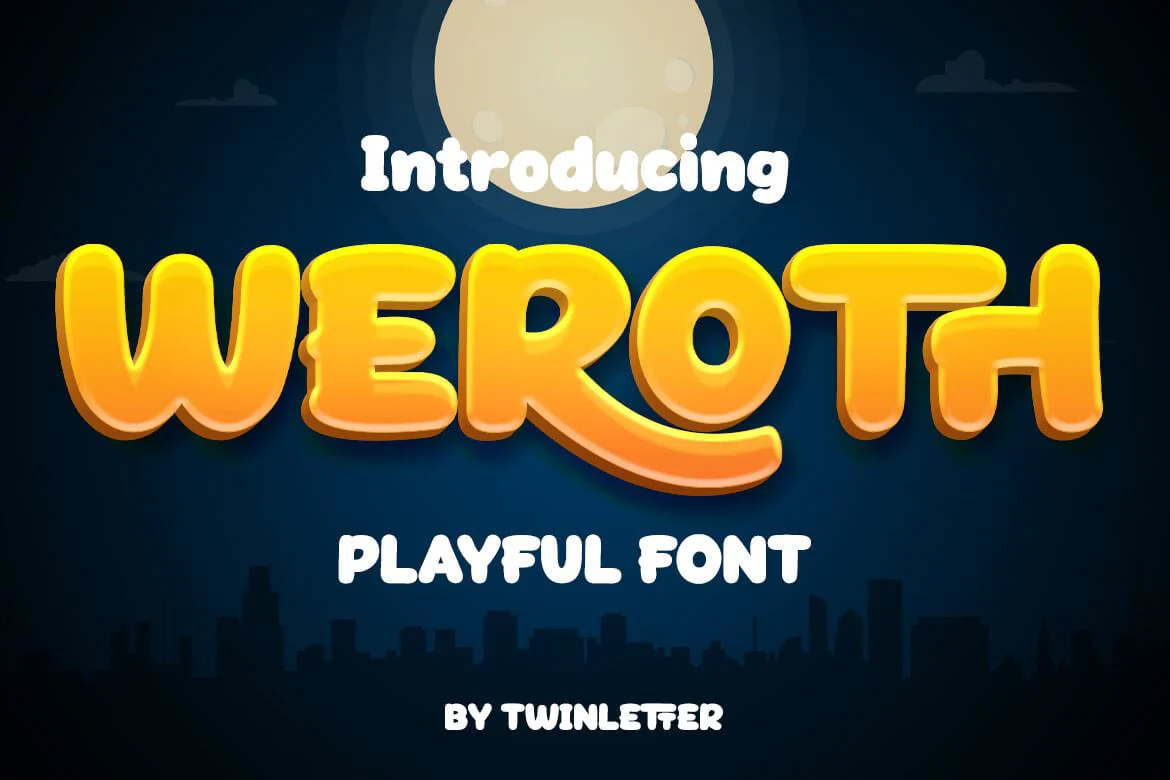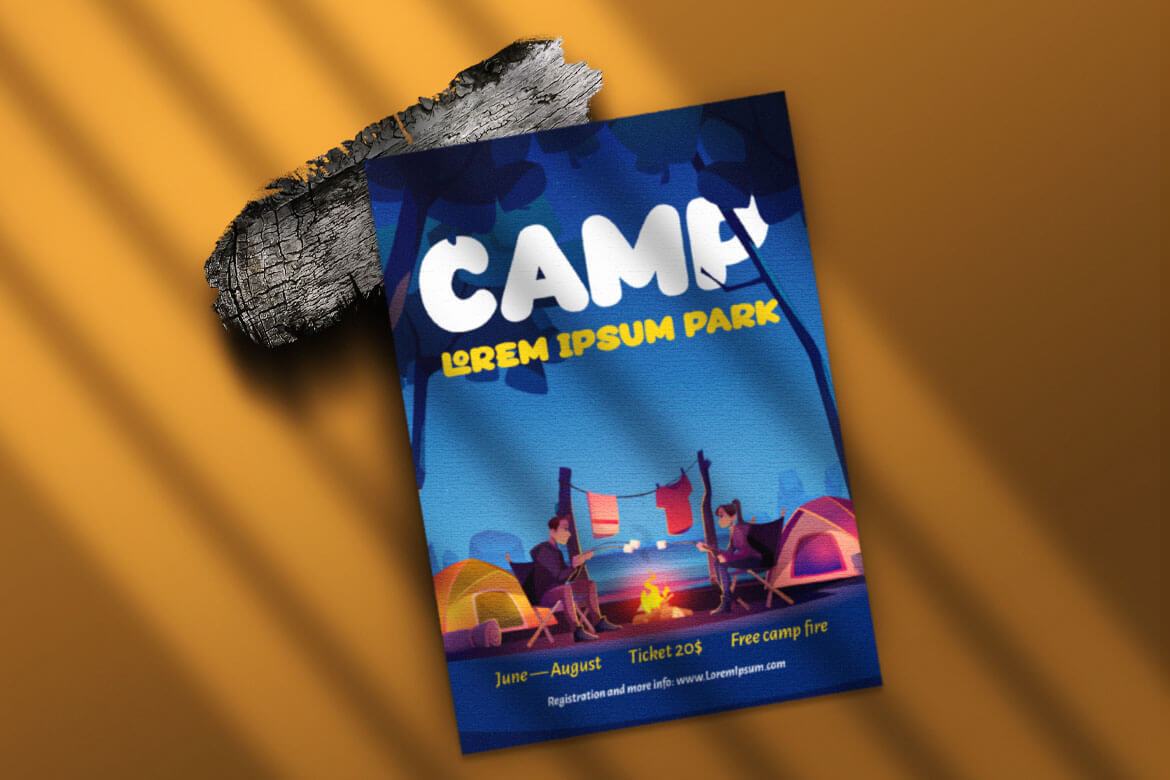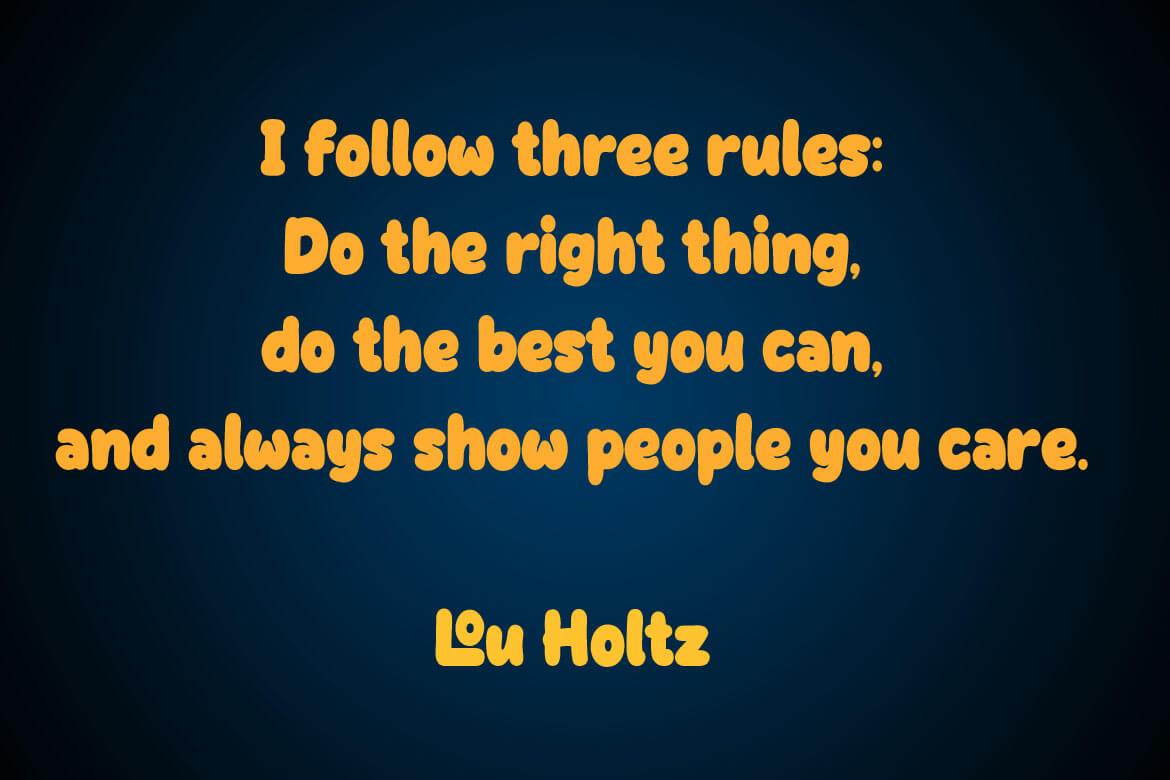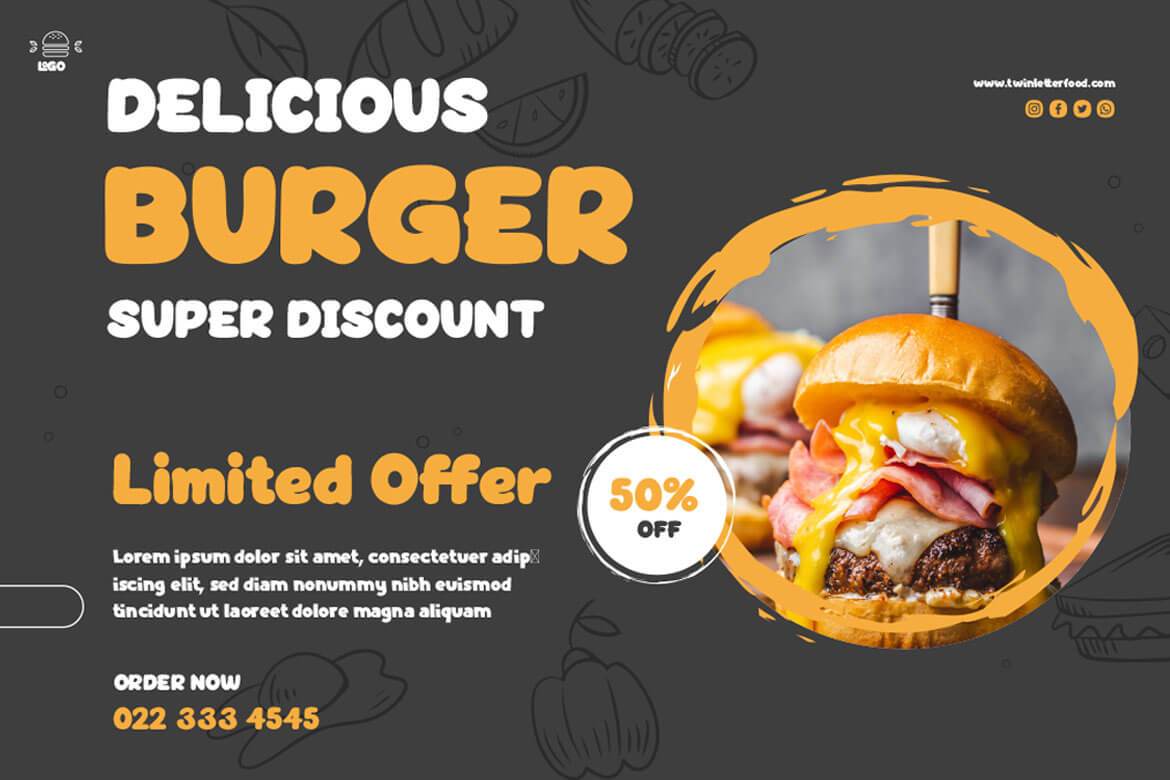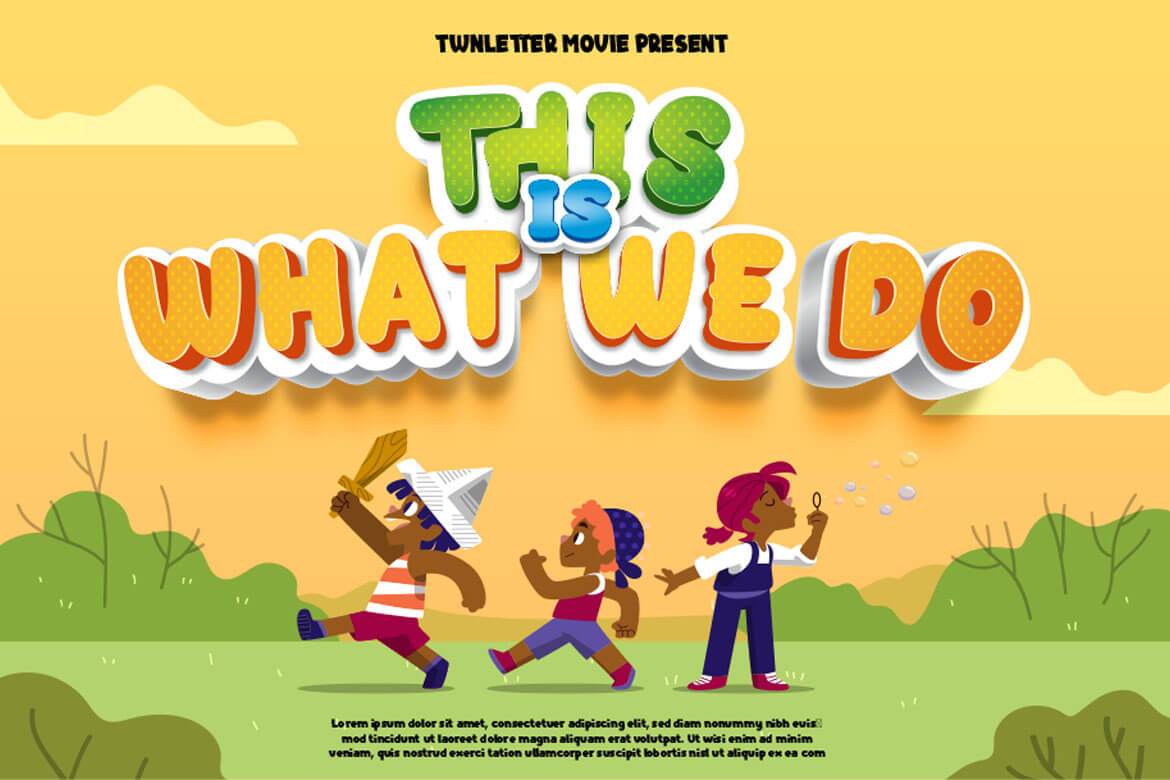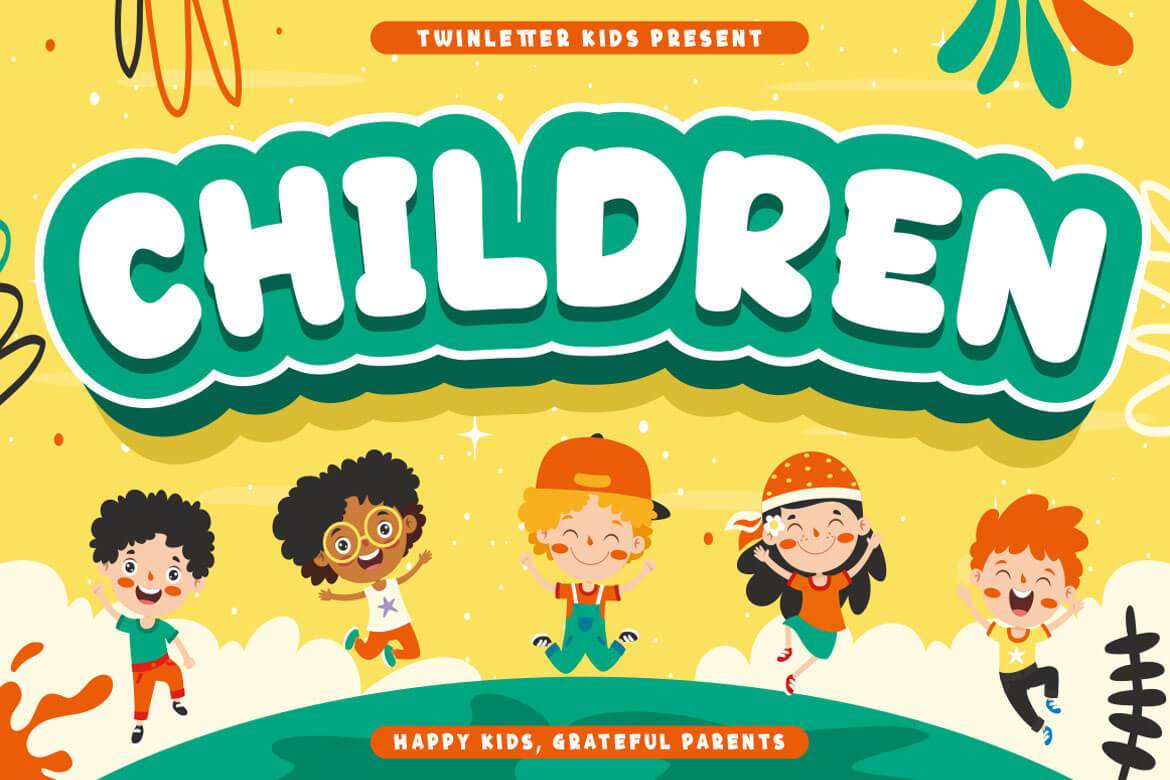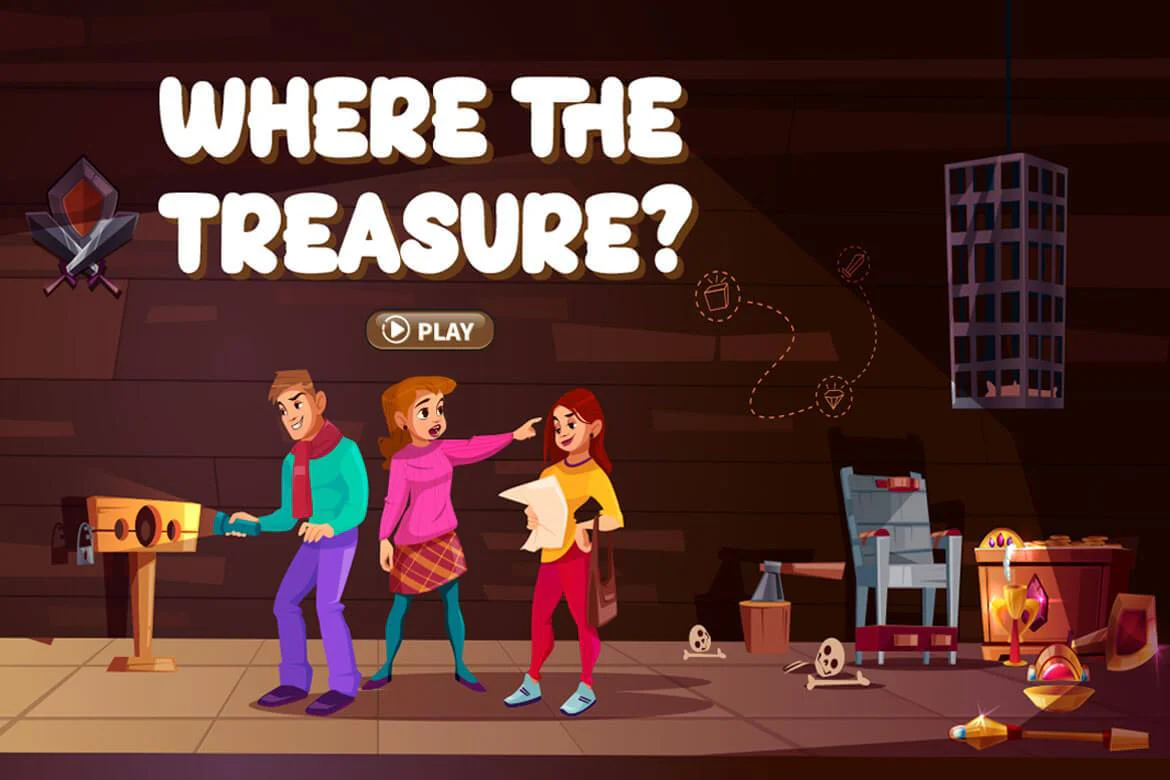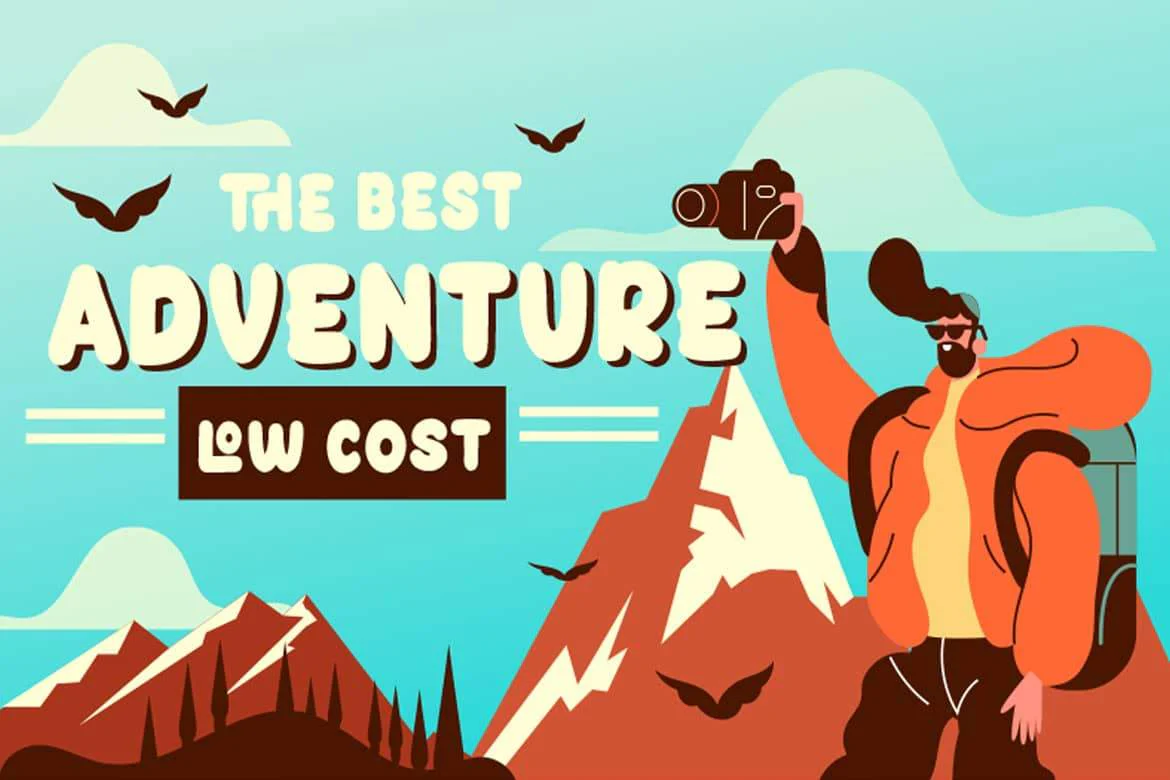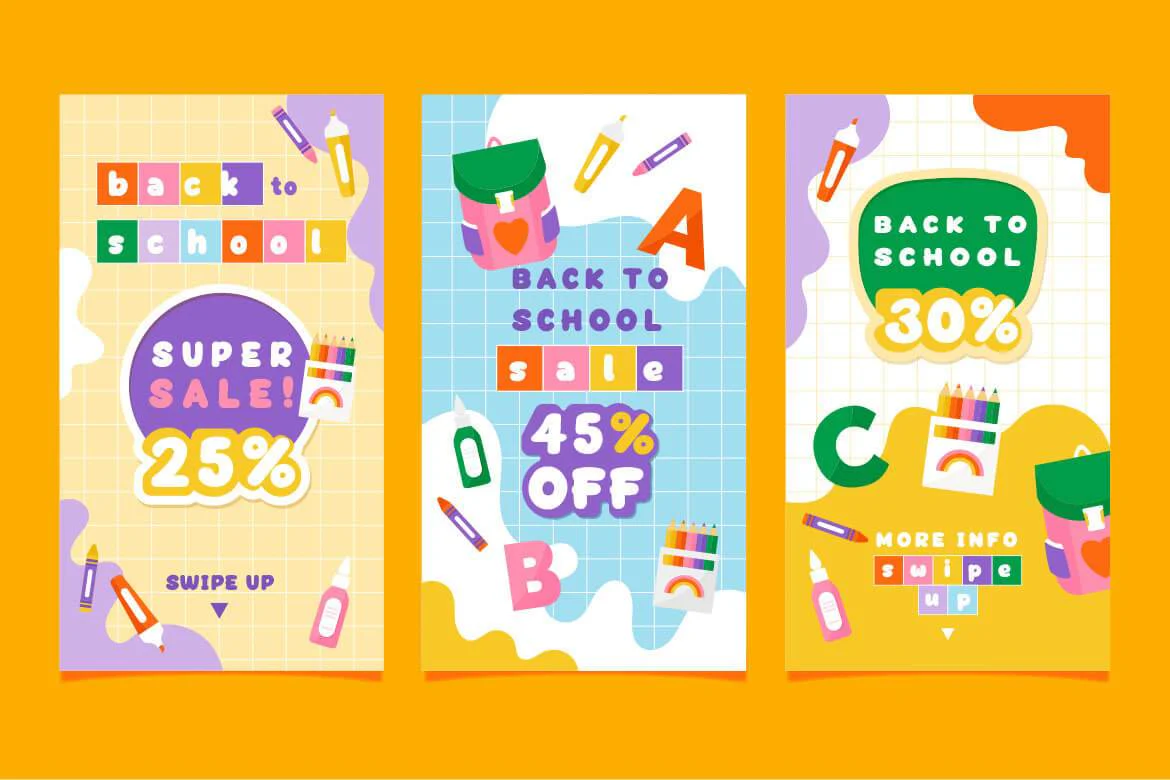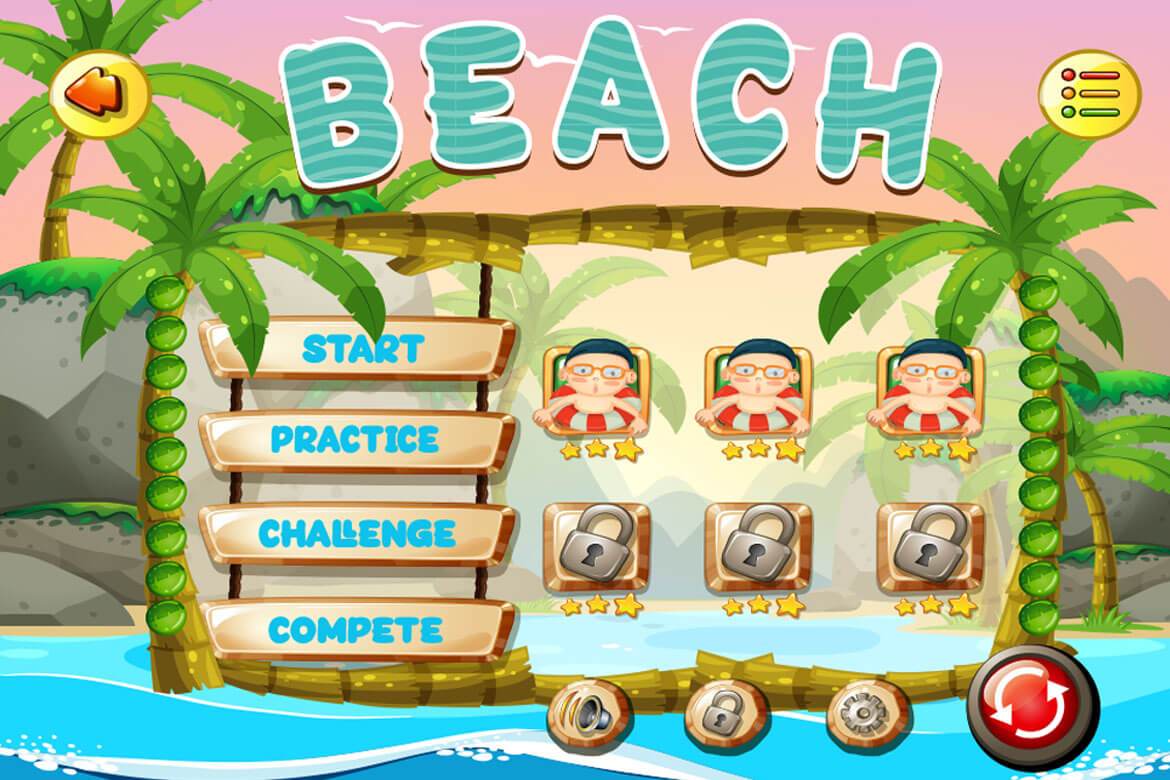
Weroth Display Playful Font
Weroth is a lovely, eye-catching display typeface that will keep onlookers looking at your work.
This font is a lot of fun; you can use it for informal or formal occasions, and it’s still adaptable.
This font is still great for perfecting any creative project, whether it’s a child, teenager, or adult theme. Don’t wait, start utilizing this font immediately.
This font is perfect for games, sporting events, branding, banners, posters, movie titles, book titles, quotes, logotypes, and more.
of course, your various design projects will be perfect and extraordinary if you use this font because this font is equipped with a complimentary font family, both for titles and subtitles and sentence text, start using our fonts for your amazing projects.
Weroth is a lovely, eye-catching display typeface that will keep onlookers looking at your work.
This font is a lot of fun; you can use it for informal or formal occasions, and it’s still adaptable.
This font is still great for perfecting any creative project, whether it’s a child, teenager, or adult theme. Don’t wait, start utilizing this font immediately.
This font is perfect for games, sporting events, branding, banners, posters, movie titles, book titles, quotes, logotypes, and more.
of course, your various design projects will be perfect and extraordinary if you use this font because this font is equipped with a complimentary font family, both for titles and subtitles and sentence text, start using our fonts for your amazing projects.